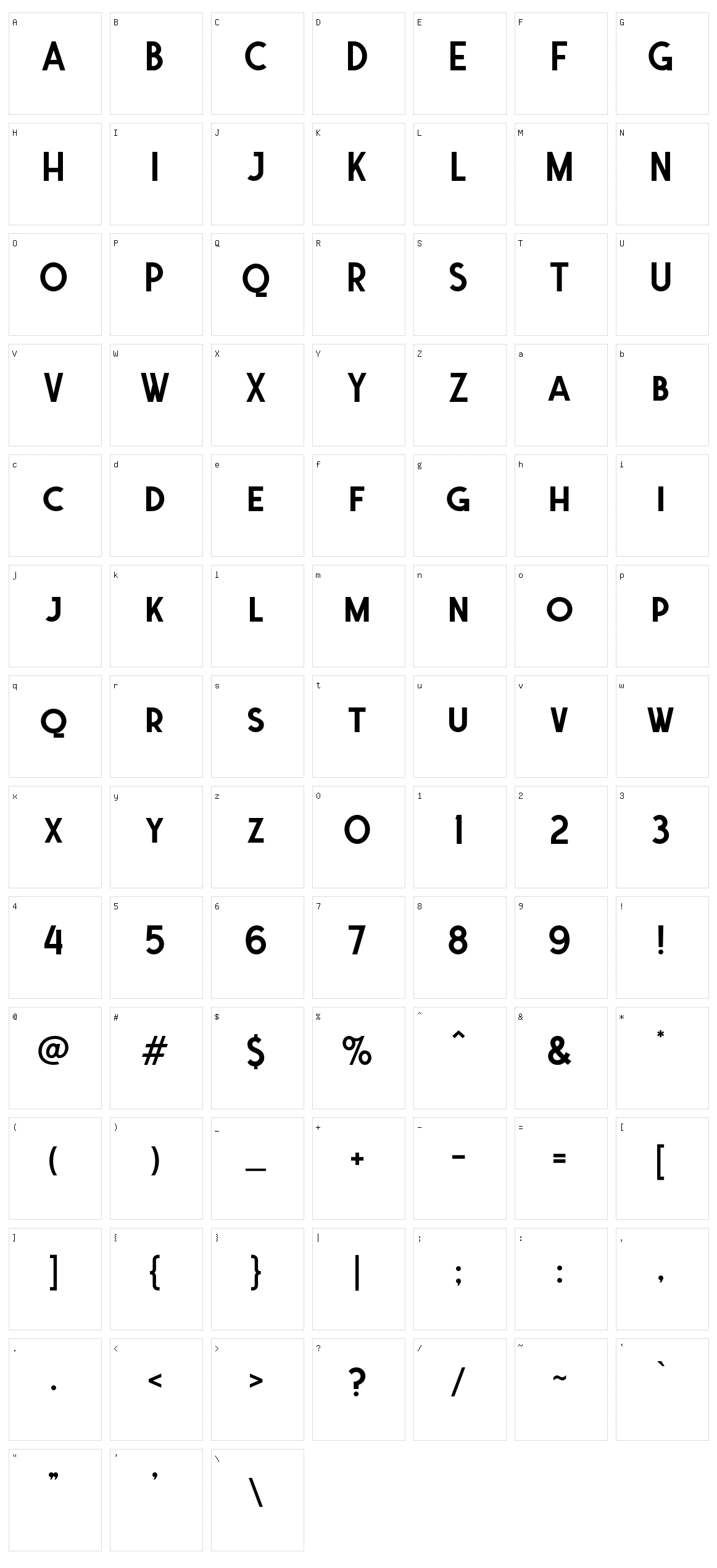
The free font Ferghaus Sans is carefully designed by Twicolabs Fontdation, showcasing a thoughtful balance of creativity and usability and falls under the Sans serif font style. When you download the ZIP file, it contains only 39.84 KB of font files, making it lightweight and quick to download. Please review the license details below to understand permitted usage and distribution rights. If license information is not available, we recommend using this font for personal projects only or contacting the author directly for commercial usage permissions.